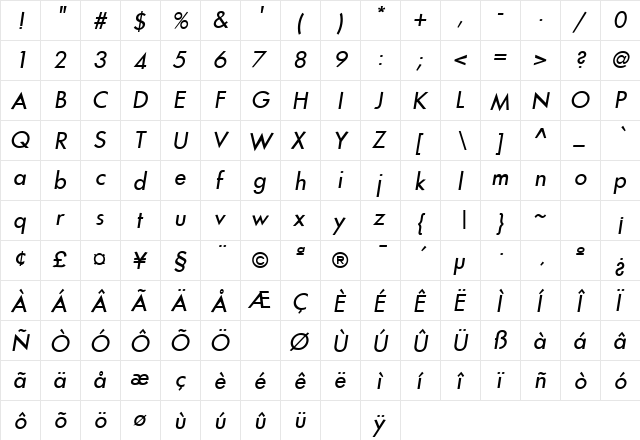
Intrepid Italic
Design Context for Intrepid Typeface
Intrepid offers clean, dependable letterforms without strong stylistic allegiance, making it a practical choice for designers who need flexibility. The dynamic lean of this cut emphasises speed and emphasis in any layout.
Pro Tip: Try Intrepid for annotation and caption copy alongside an upright companion — the contrast in angle creates a dynamic but ordered typographic system.